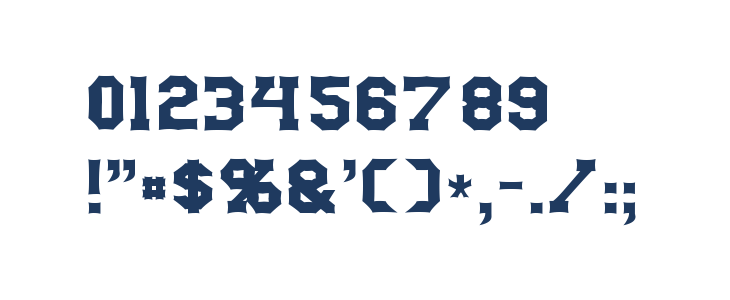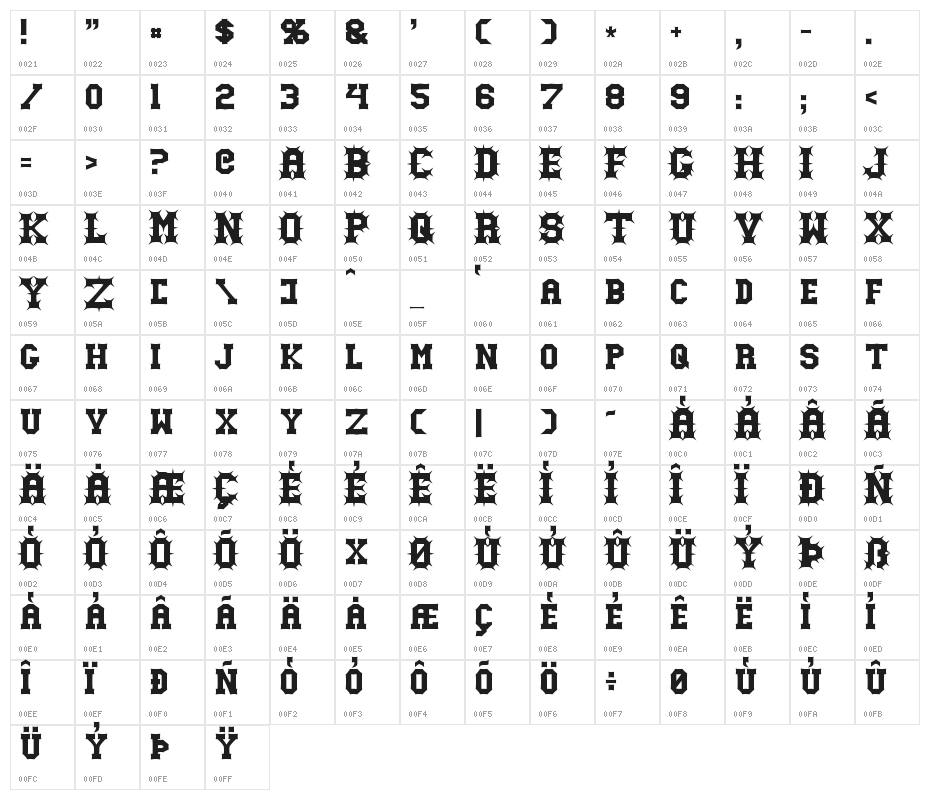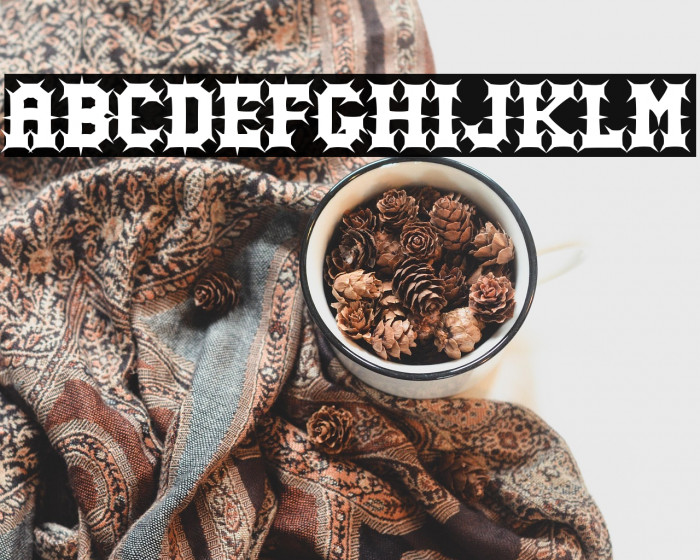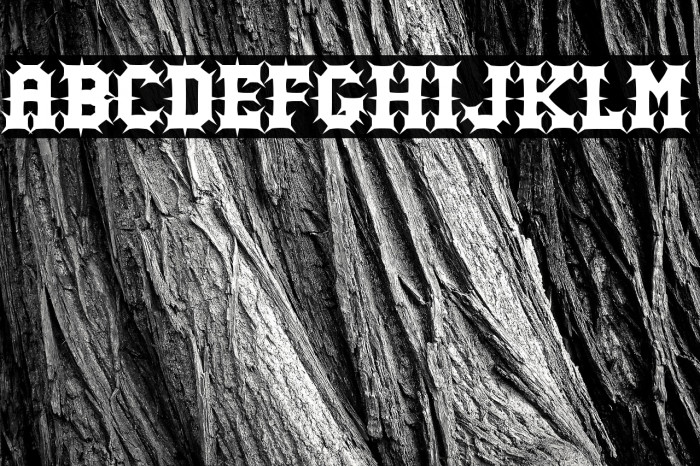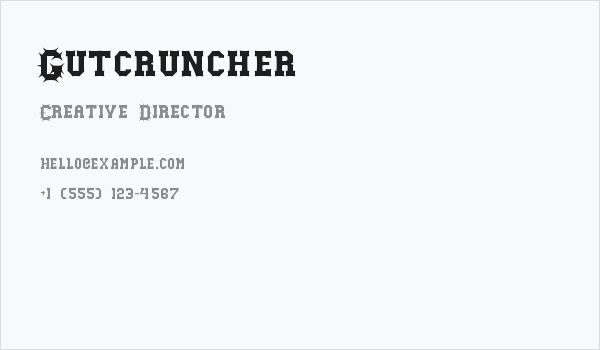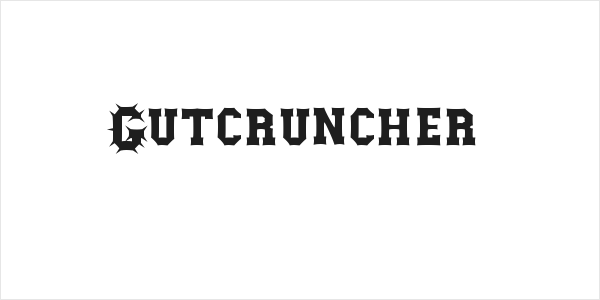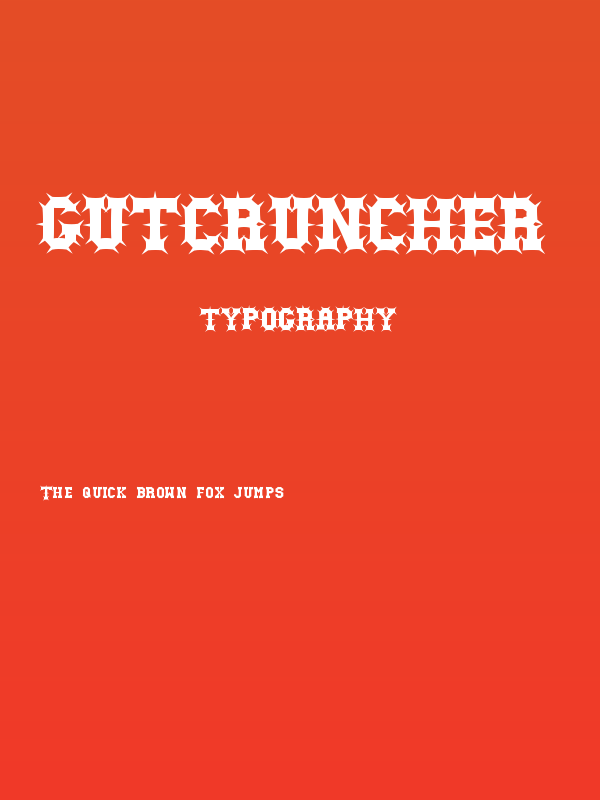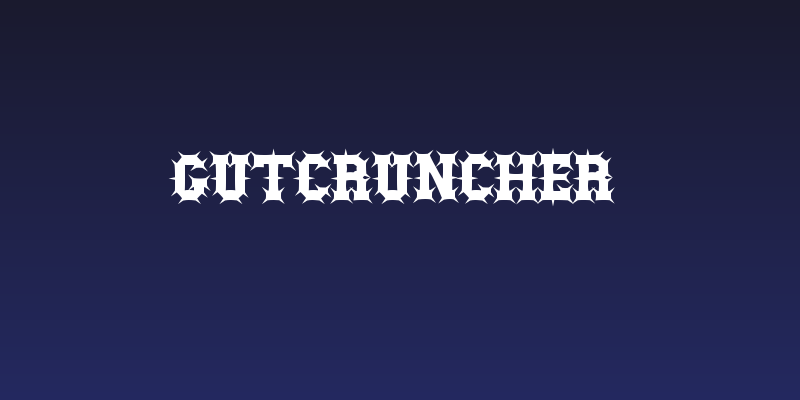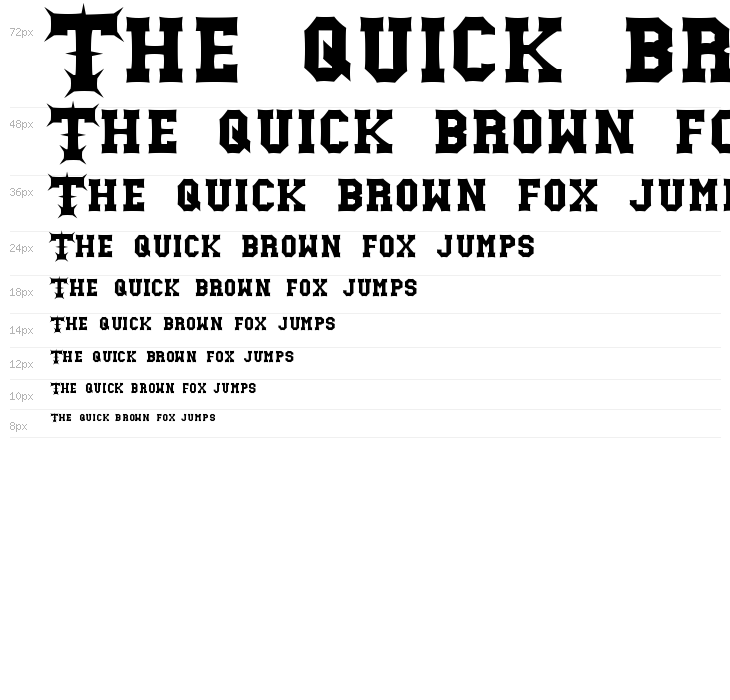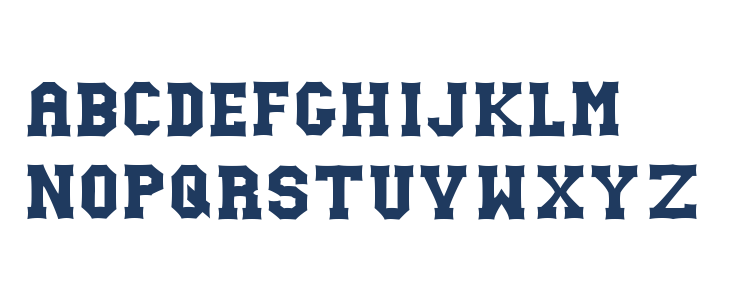
Gutcruncher Font
Gutcruncher Description
This font features a bold, aggressive style with sharp, angular edges and a heavy presence. The uppercase letters are particularly striking, with a gothic influence that gives them a menacing appearance. The lowercase letters maintain the same boldness, ensuring consistency throughout the typeface. Numbers and special characters are equally robust, making them stand out in any design. The font's unique style is reminiscent of heavy metal or horror themes, making it perfect for projects that require a strong, impactful visual statement.
| Overall Style | Gothic, Dramatic |
| Proposed Projects | Ideal for album covers, movie posters, video game titles, and any design requiring a bold, dramatic impact. |